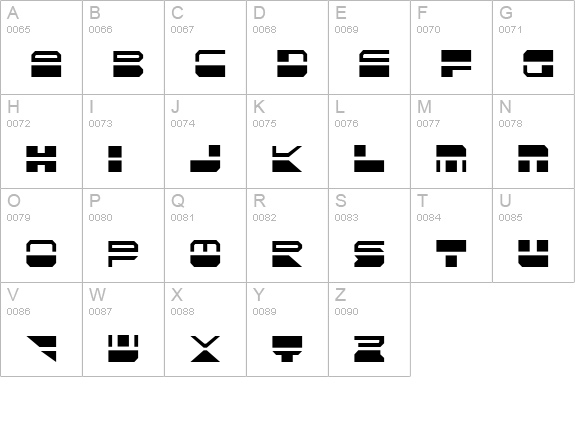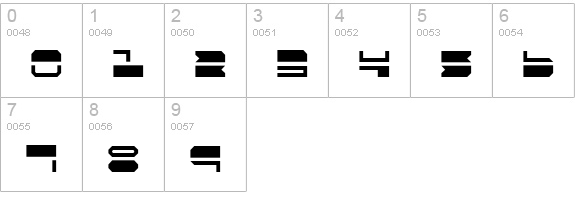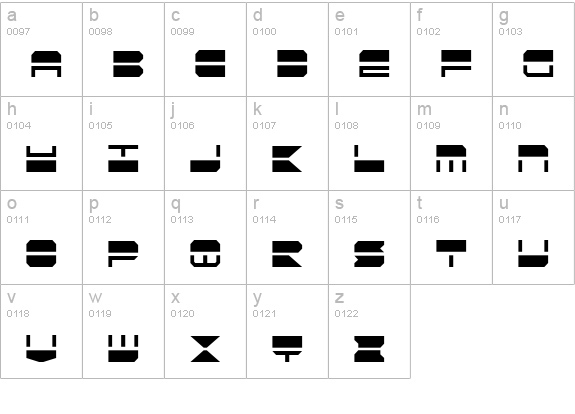
Quickmark Condensed is a distinctive, condensed-width variant in the Quickmark typeface family \xE2\x80\x94 well suited to design and typography projects.
Quickmark Condensed is a sleek and modern font that is perfect for adding a touch of sophistication to your designs. With its clean lines and condensed letterforms, this font exudes a sense of professionalism and style. The versatility of Quickmark Condensed makes it ideal for a wide range of design projects, from branding to advertising to social media graphics. One of the best things about Quickmark Condensed is that it is completely free to download. You can easily access this stylish font at FontsMarket.com, where you can instantly enhance your projects with this elegant typeface. Whether you're designing a logo, creating a poster, or crafting a website, Quickmark Condensed is sure to elevate your work to the next level. Download this font today and give your designs a touch of sophistication and flair.